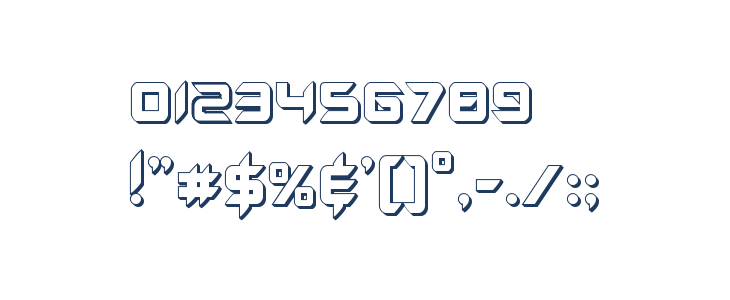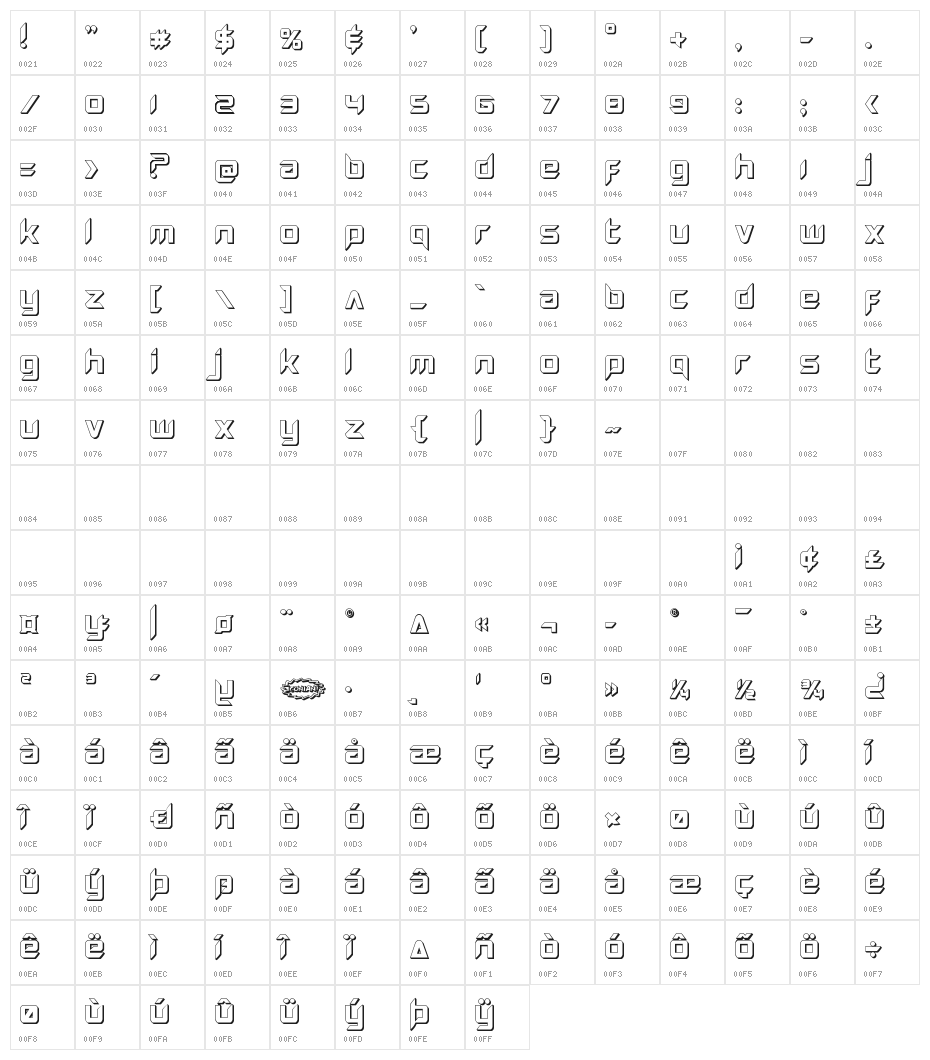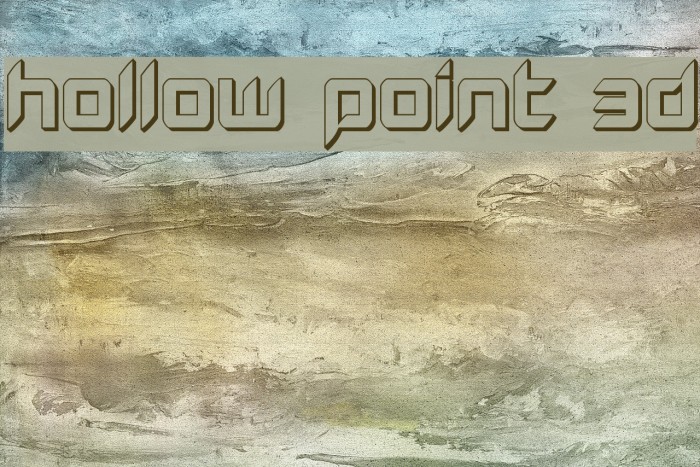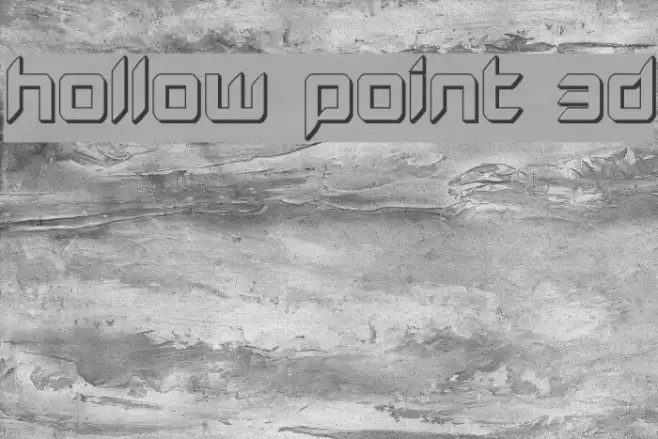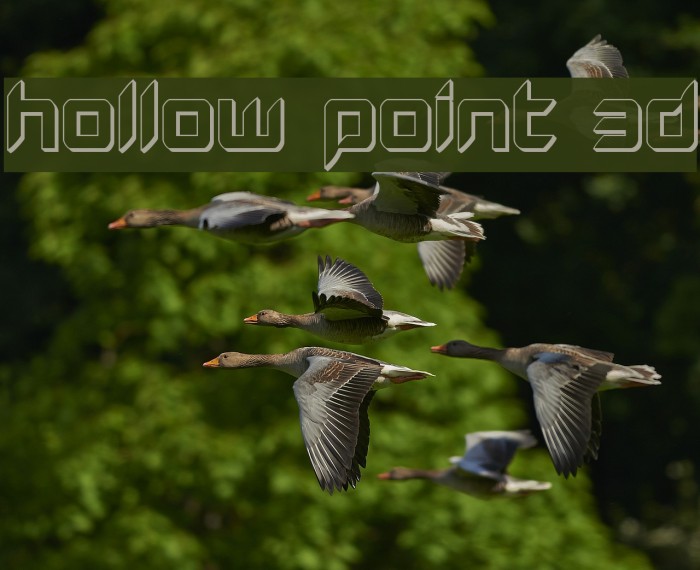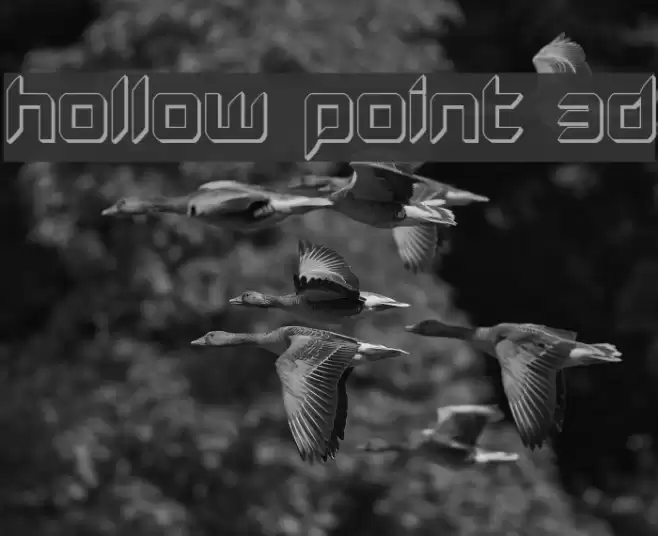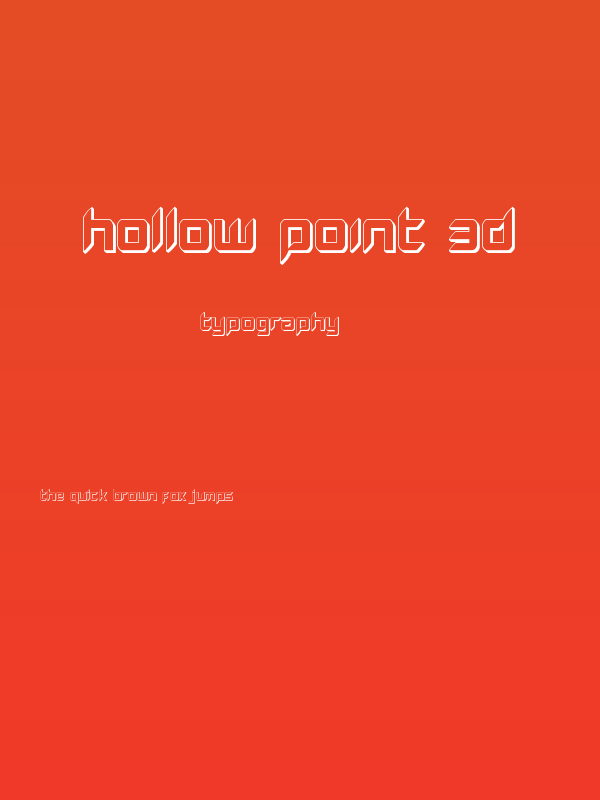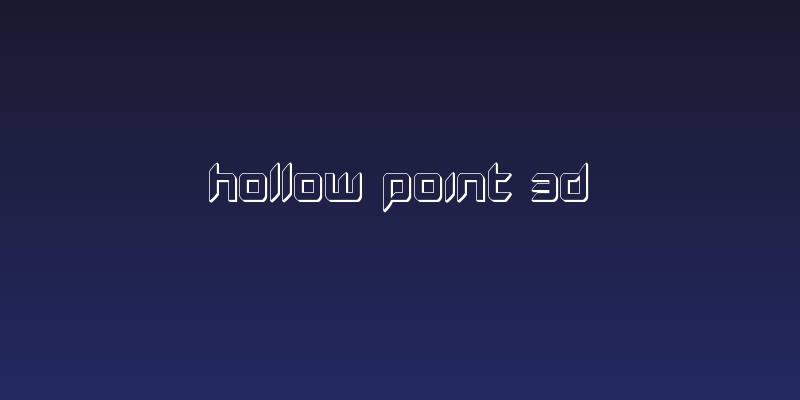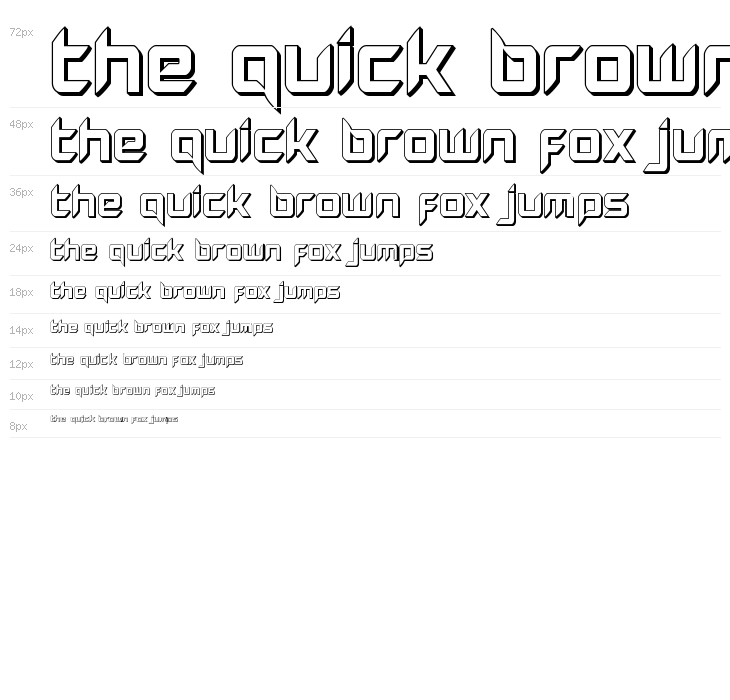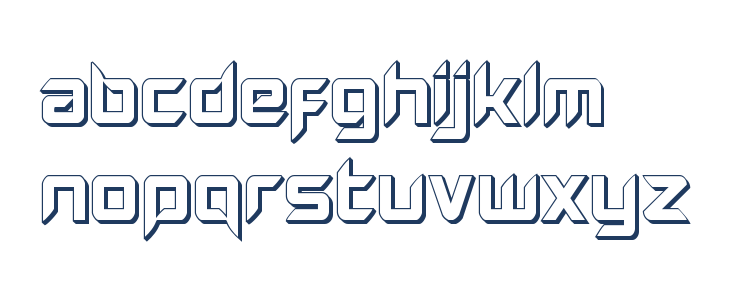
Hollow Point 3D Font
Hollow Point 3D Description
This font features a bold, three-dimensional design with a hollow interior, giving it a futuristic and dynamic appearance. The characters are angular and geometric, with sharp edges and a consistent stroke width that emphasizes its modern aesthetic. The 3D effect is achieved through a clever use of shading and outlines, creating a sense of depth and movement. This style is particularly eye-catching and suitable for projects that require a strong visual impact. The font includes a full set of uppercase and lowercase letters, numbers, and a variety of special characters, making it versatile for different design needs.
| Proposed Projects | Ideal for futuristic branding, video game titles, posters, and any design that requires a modern, eye-catching typeface. |